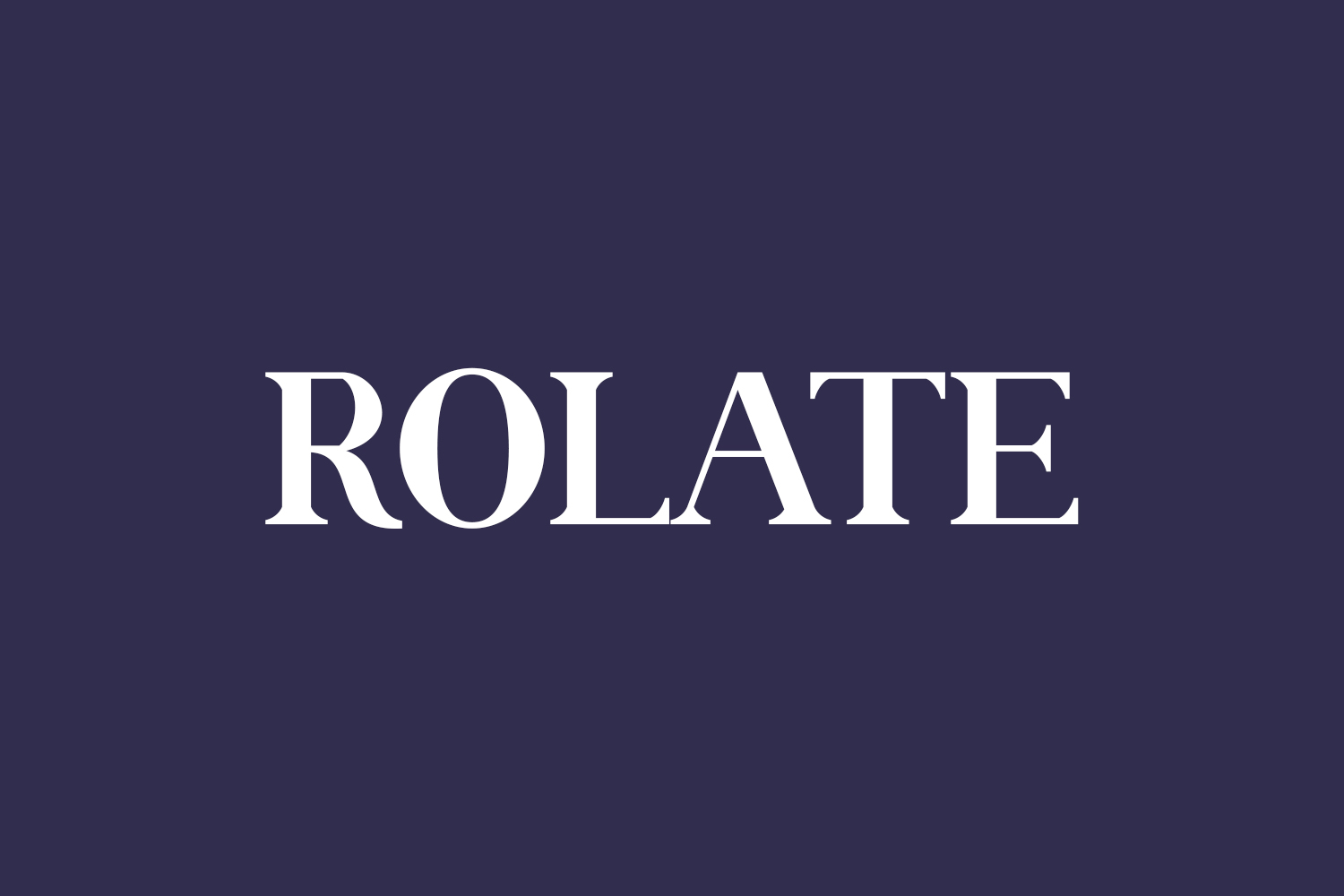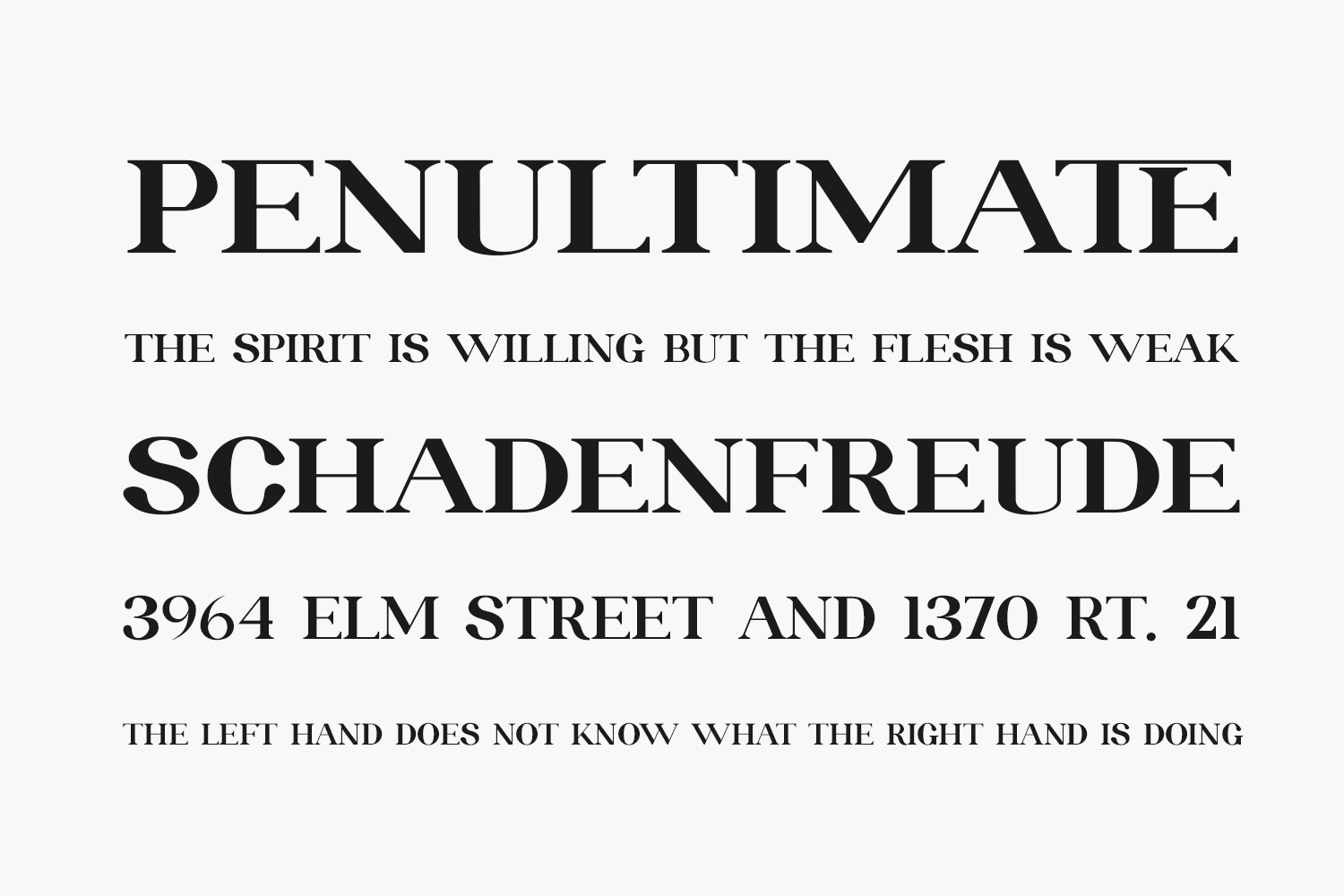
Rolate Free Font, a bold and sophisticated serif font, has been meticulously designed for individuals seeking a stunning and rejuvenating aesthetic in their designs. Elevate your creative projects with this elegant typeface. Rolate Free Font was designed by Alfin Ridhowi and is free for personal use only. Please purchase the full version for commercial use.
Designed by Alfin Ridhowi